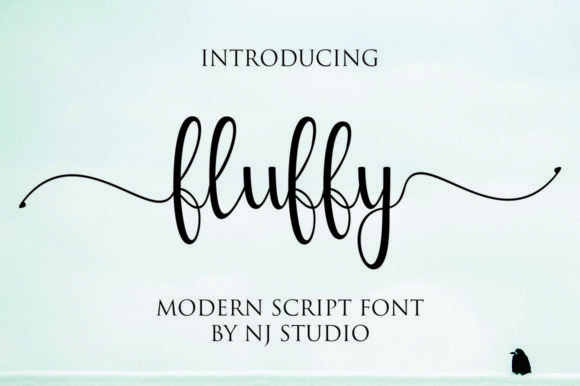
The Perfect Addition to Your Design Toolbox
Have you ever found yourself staring at a blank page, desperate for that one perfect font to bring your design to life? We’ve all been there, haven’t we? It’s like searching for a needle in a haystack, until suddenly, you stumble upon it – that one font that makes everything click. For many of us, that font is Fluffy Font.
This modern and sweet script font is more than just a pretty face; it’s a versatile tool that can add a unique touch to anything from stationery to branding. Whether you’re a seasoned designer or just starting out, Fluffy Font is a valuable addition to your design toolbox. Its cheerful and approachable vibe makes it perfect for a wide range of applications, from social media graphics to wedding invitations.
So, what makes Fluffy Font so special? Its unique blend of modern and vintage elements makes it a standout in the world of typography. And with its wide range of applications, you can use it to add a personal touch to anything you create.
Fluffy Font Key Features
- Unique Characteristic: Organic, handwritten feel with subtle texture, creating a friendly and approachable atmosphere in digital content.
Fluffy Font Review
As a designer, I was excited to dive into “Fluffy Font” and see what it had to offer. Here’s my honest review:
- Playful and whimsical feel: “Fluffy Font” perfectly captures a carefree, lighthearted vibe that’s perfect for children’s books, social media, or other fun projects.
- High-quality glyphs: The font’s letterforms are smooth, well-crafted, and display well at various sizes.
- Extensive language support: “Fluffy Font” includes support for many languages, making it a great choice for global brands or projects.
- Lack of sophistication: While “Fluffy Font” is perfect for playful projects, it may not be the best choice for more serious or professional work.
- Narrow character set: Although the font has a wide language support, it may not include some specialized characters or symbols.
Overall, I think “Fluffy Font” is a solid choice for designers looking for a fun, approachable font. While it may have some limitations, its unique personality and high-quality glyphs make it a great addition to any design arsenal.
The Fluffy Font is perfect for creating playful and eye-catching designs. Use it for:
- Social media posts and graphics.
- Children’s book illustrations and educational materials.
- Wedding invitations and party decorations.
Alternatives to Fluffy Font
Lato is a sans-serif font designed by Łukasz Dziedzic. It is highly legible and suitable for body text, especially in digital interfaces. When to use: Lato is ideal for websites, mobile apps, and digital products where readability is crucial.
Comparison to Fluffy Font: While Fluffy Font has a more rounded and playful feel, Lato is more modern and clean. Lato is also more versatile and can be used in a wider range of contexts.
Arimo is a sans-serif font designed by Steve Matteson. It is highly legible and suitable for body text, especially in digital interfaces. When to use: Arimo is ideal for websites, mobile apps, and digital products where readability is crucial.
Comparison to Fluffy Font: Like Lato, Arimo is a more modern and clean alternative to Fluffy Font. While Fluffy Font has a more rounded and playful feel, Arimo is more geometric and minimalist.
Cantarell
Cantarell is a sans-serif font designed by Dalton Maag. It is highly legible and suitable for body text, especially in digital interfaces. When to use: Cantarell is ideal for websites, mobile apps, and digital products where readability is crucial.